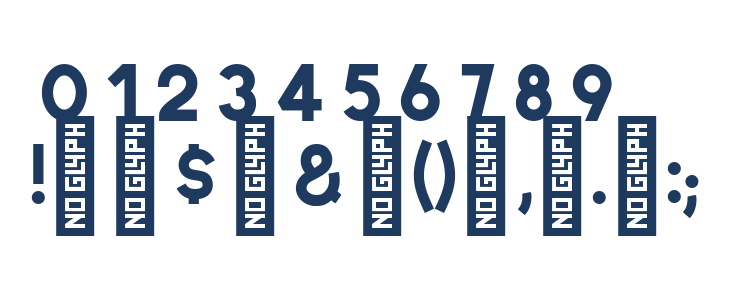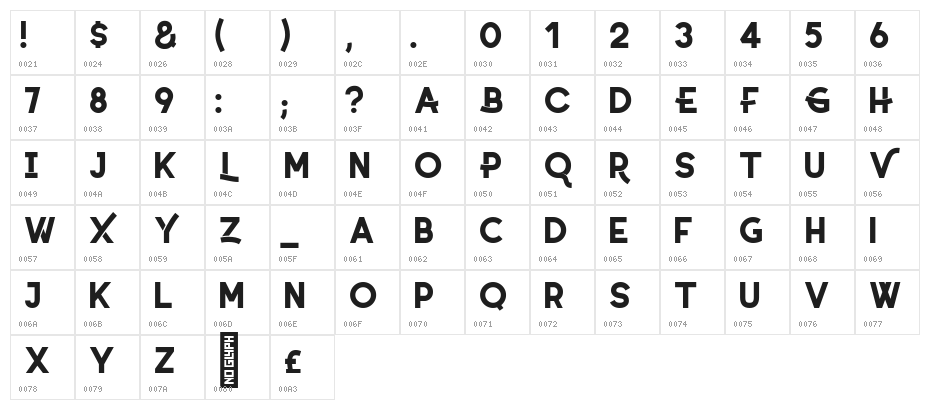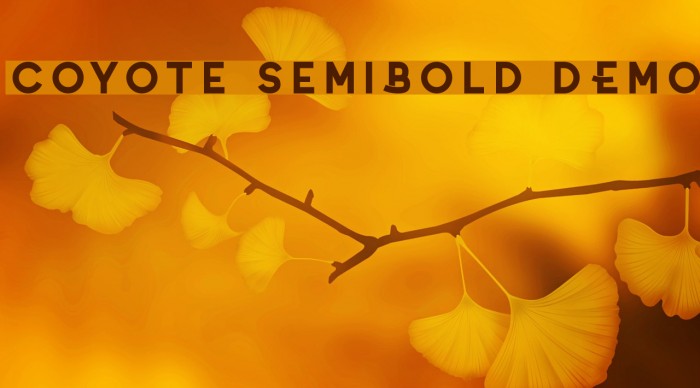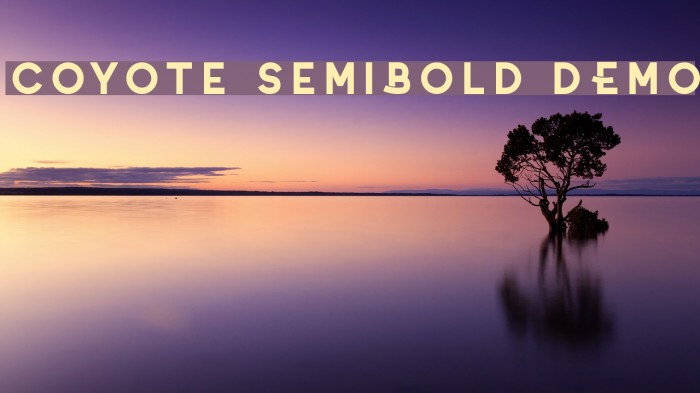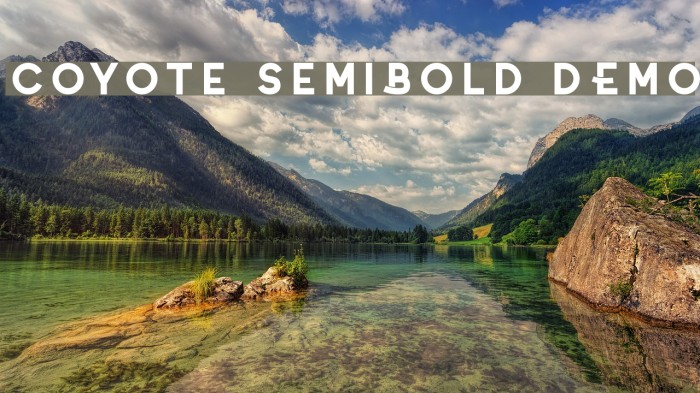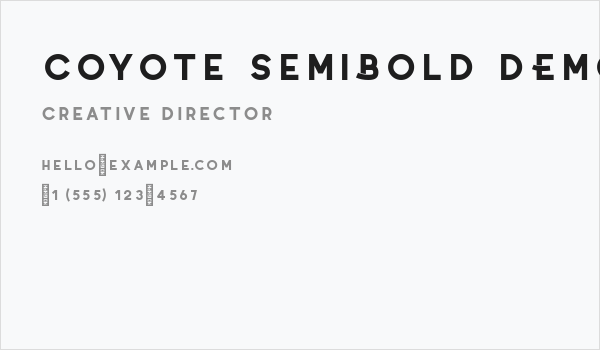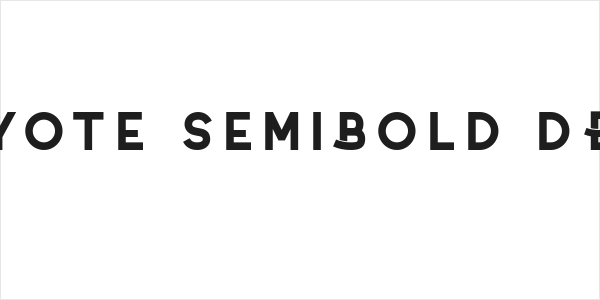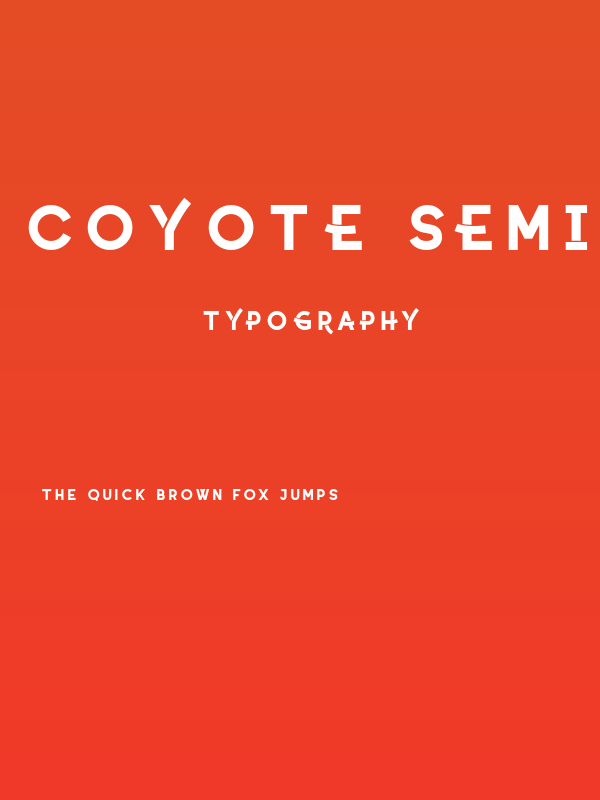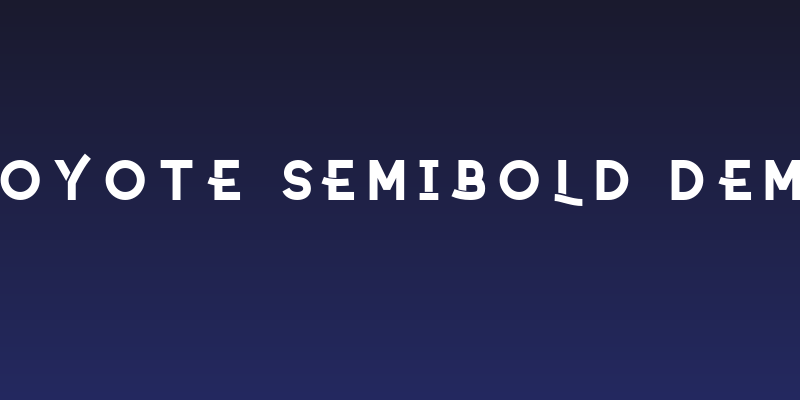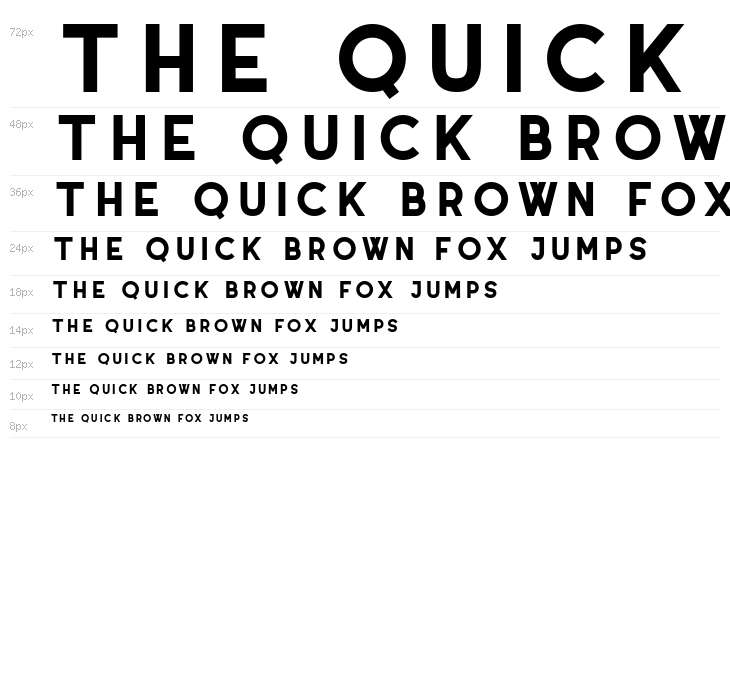
Coyote SemiBold DEMO Font
Coyote SemiBold DEMO Description
This font features a bold and modern aesthetic with a geometric sans-serif style. The characters are clean and straightforward, with a slight emphasis on angular shapes and sharp edges. The uppercase letters are particularly striking, with a uniform height and width that create a balanced and cohesive look. The lowercase letters maintain the same geometric precision, ensuring readability and consistency. The numerals are clear and bold, matching the overall style of the alphabet. Special characters are included, adding versatility to the font's application. This font is ideal for projects that require a contemporary and assertive appearance.
| Proposed Projects | Ideal for branding, advertising, headlines, and digital media that require a modern and bold statement. |